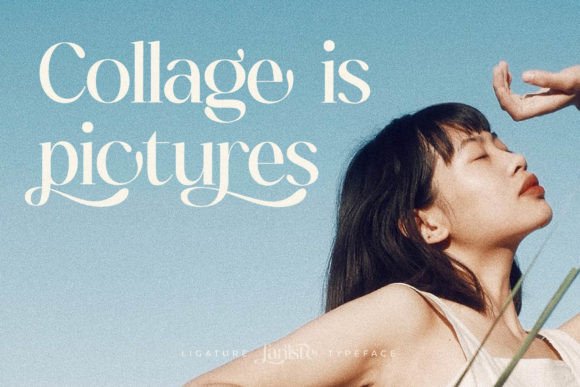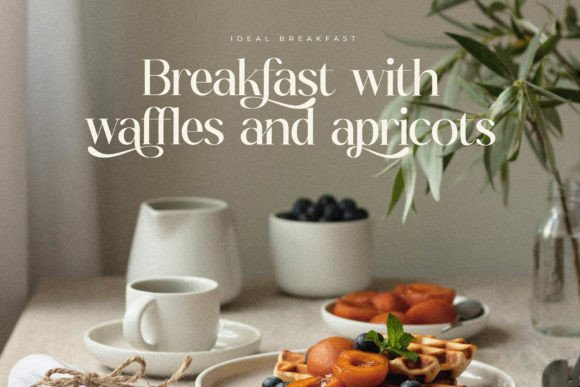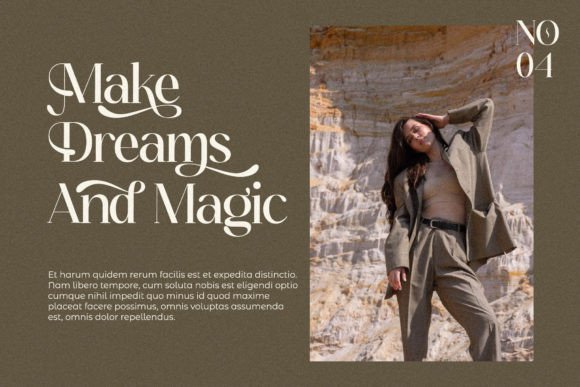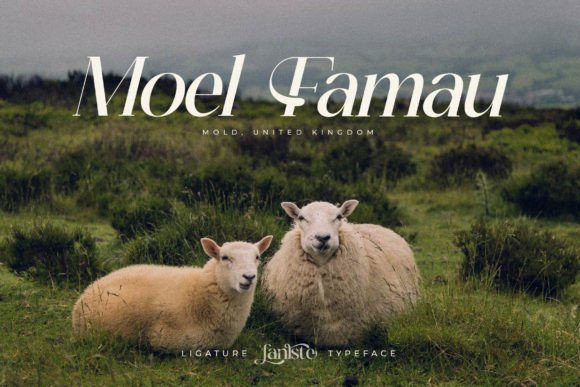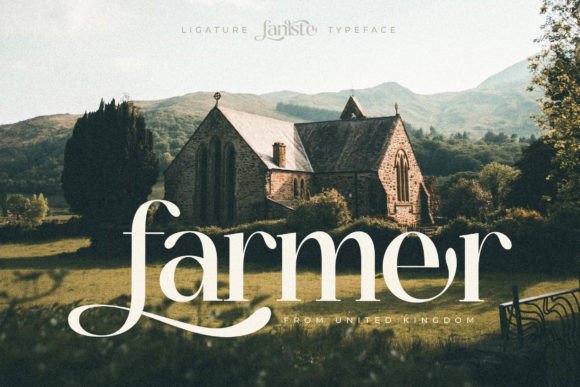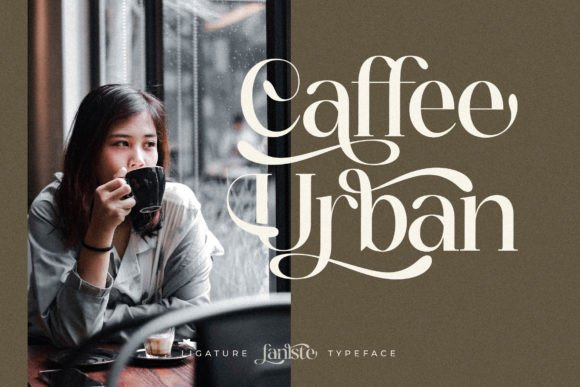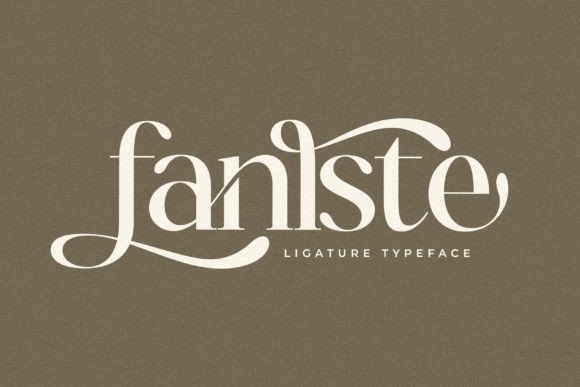
Introducing Fanlste Font: Elevate Your Designs with Elegance and Sophistication
In the world of typography, fonts play a crucial role in conveying the tone and aesthetic of a design. For designers and crafters seeking to create luxurious, elegant, and feminine projects, the right font can make all the difference. This is where Fanlste Font comes into play – a sophisticated, charming serif font with a fashionable touch that is perfectly suited for modern, chic designs.
The Essence of Fanlste Font
Fanlste Font is a meticulously crafted serif font that exudes elegance and sophistication. Its design is characterized by refined lines, subtle curves, and a distinctive charm that sets it apart from other fonts. The font’s sophistication makes it an ideal choice for projects that demand a high level of luxury and refinement, such as high-end fashion brands, beauty products, and upscale lifestyle publications.
Key Features of Fanlste Font
- Sophisticated and Charming Design: Fanlste Font boasts a unique blend of classic serif elements and modern flair, making it perfect for designs that require a touch of elegance.
- Fashionable Touch: The font’s fashionable design ensures that your projects stand out with a contemporary and stylish appeal.
- Luxury and Elegance: Fanlste Font is specially designed to cater to luxury, elegant, and feminine projects, providing a typographic solution that enhances the sophistication of your designs.
- Versatility: This font is versatile and can be used across various design projects, including branding, packaging, magazines, and digital media.
Why Choose Fanlste Font?
For designers and crafters, selecting the right font can be a daunting task. Here are a few reasons why Fanlste Font stands out as a top choice:
- Unique Aesthetic: Fanlste Font offers a distinctive aesthetic that can elevate your designs and set them apart from the competition.
- Time-Saving: With Fanlste Font, you can achieve professional-looking results without spending hours on custom typography.
- Easy to Read: The font’s clear and readable design ensures that your message is conveyed effectively, making it suitable for both print and digital media.
Using Fanlste Font in Your Projects
Incorporating Fanlste Font into your designs is straightforward. Here are some tips to make the most out of this elegant font:
- Pair with Complementary Fonts: Combine Fanlste Font with sans-serif fonts for a modern contrast or with other serif fonts for a classic, layered look.
- Experiment with Sizes and Weights: Play with different sizes and weights to create visual hierarchy and add depth to your designs.
- Pay Attention to Kerning: Adjust the kerning to ensure optimal spacing and readability, especially in longer texts.
Fanlste Font is a powerful tool for designers and crafters aiming to infuse their projects with luxury, elegance, and a touch of modern sophistication. Its charming serif design, fashionable appeal, and versatility make it an excellent choice for a wide range of applications. By incorporating Fanlste Font into your design repertoire, you can create stunning, professional-grade designs that leave a lasting impression.
Whether you’re working on a high-end fashion brand, a beauty product, or any project that demands a level of sophistication, Fanlste Font is sure to meet your needs and exceed your expectations.